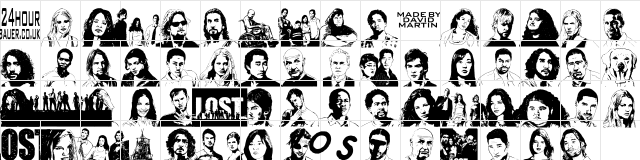
Lost Forever Regular
Design Context for Lost Forever Typeface
Lost Forever is a composed and adaptable typeface that performs quietly and consistently across a wide range of design contexts.